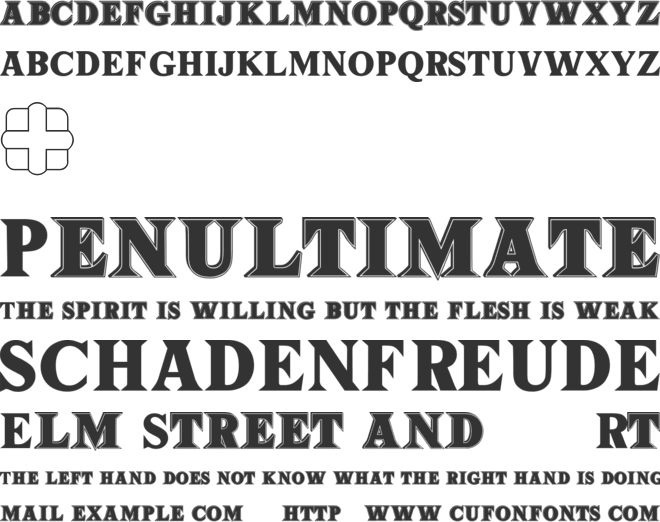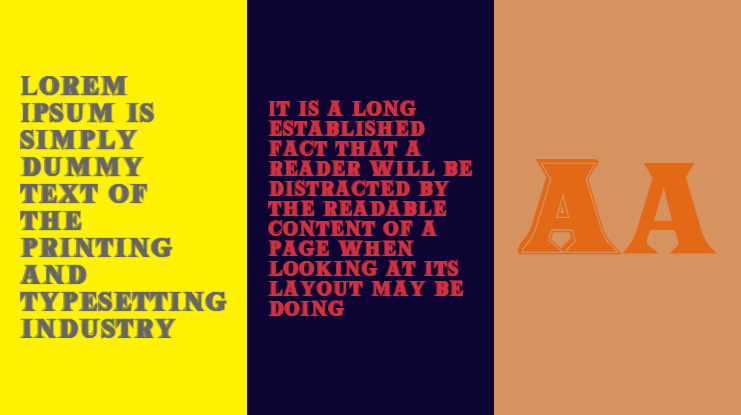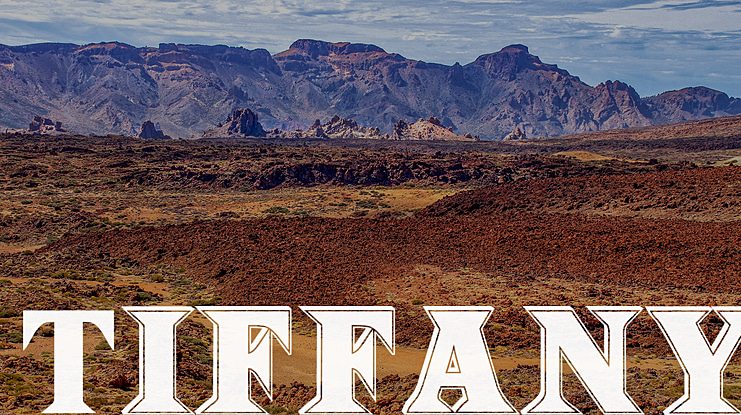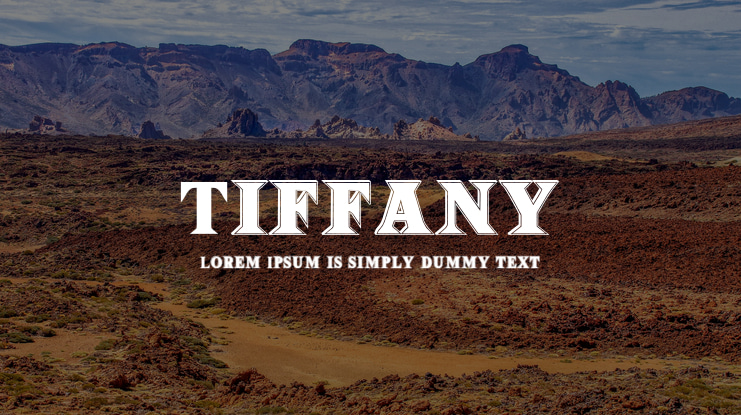
Tiffany Font
P. A. Vannucci
Directly from the film directed by Blake Edwards, starring an unforgettable AUDREY HEPBURN, the new font for all admirers of the film.
Direttamente dal film diretto da Blake Edwards, interpretato da una indimenticabile AUDREY HEPBURN, il font inedito per tutti gli estimatori del film.